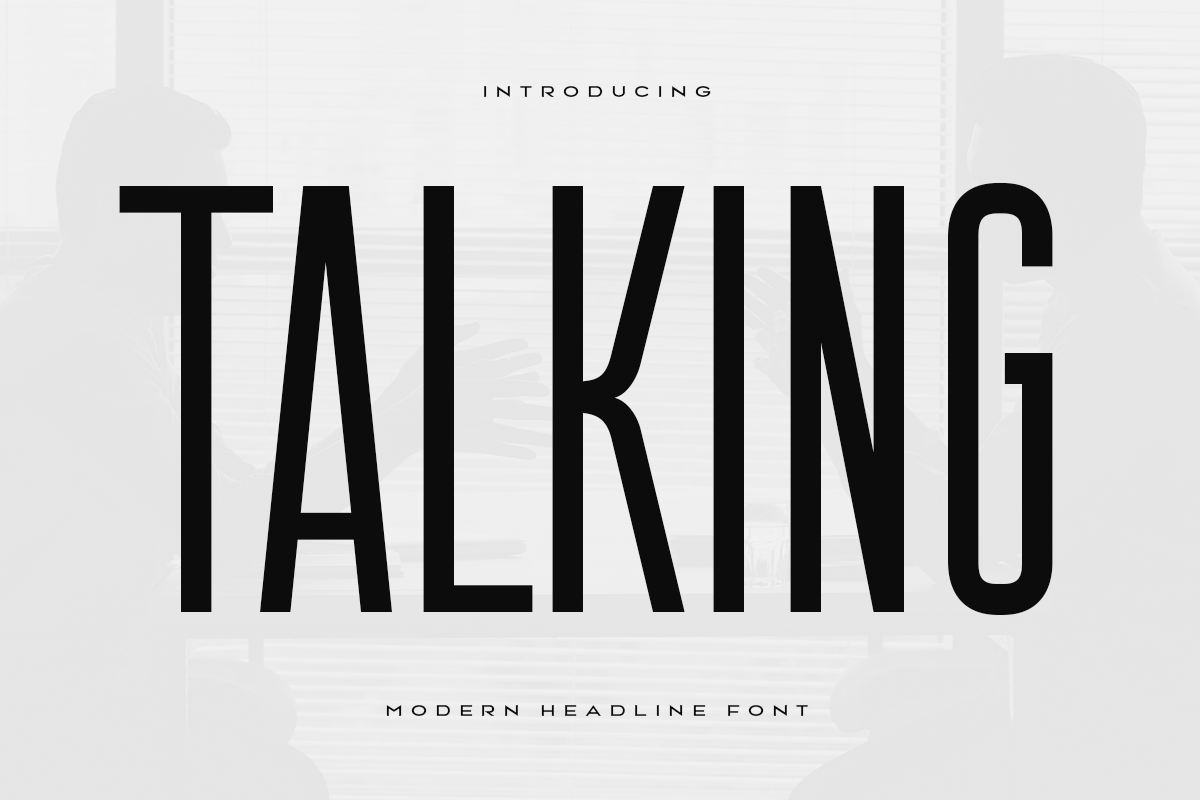
Talking
-Modern Headline Condensed Font
Talking
Talking is an Ultra Condensed Headline Sans Serif Font that perfect for headline, Title, Instagram post, etc.
A new San Serif Font that we created special for Headline, Title and more stand out typography needs, with extra ligature that will add your variations. It's so perfect to add your style and headline overview. And specially for Headline font, we crafted for unique style and modern feels so enjoy to create any project that will show your main idea out.